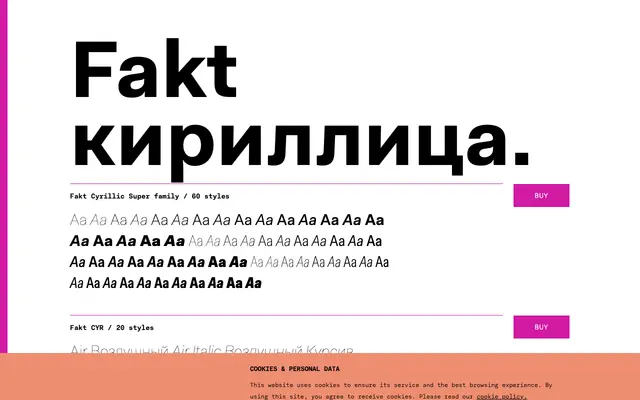
Fakt Cyrillic
A 60-style Cyrillic grotesque superfamily spanning three widths and ten weights with matching italics, designed for Latin and Cyrillic typesetting.
The family runs across three subfamilies — Fakt CYR, Fakt SmCon CYR and Fakt Con CYR — each offering ten weights from Air to Black with italic counterparts, giving 60 styles in total. OpenType features are extensive, including small capitals, oldstyle figures, tabular figures, fractions, stylistic alternates and seventeen stylistic sets. The Cyrillic coverage makes it suited to publishing, editorial and identity work across Russian and other Cyrillic-script languages alongside Latin.
A neutral grotesque sans-serif with an extensive Cyrillic character set, offering three width variants and a broad weight range typical of contemporary grotesque superfamilies.